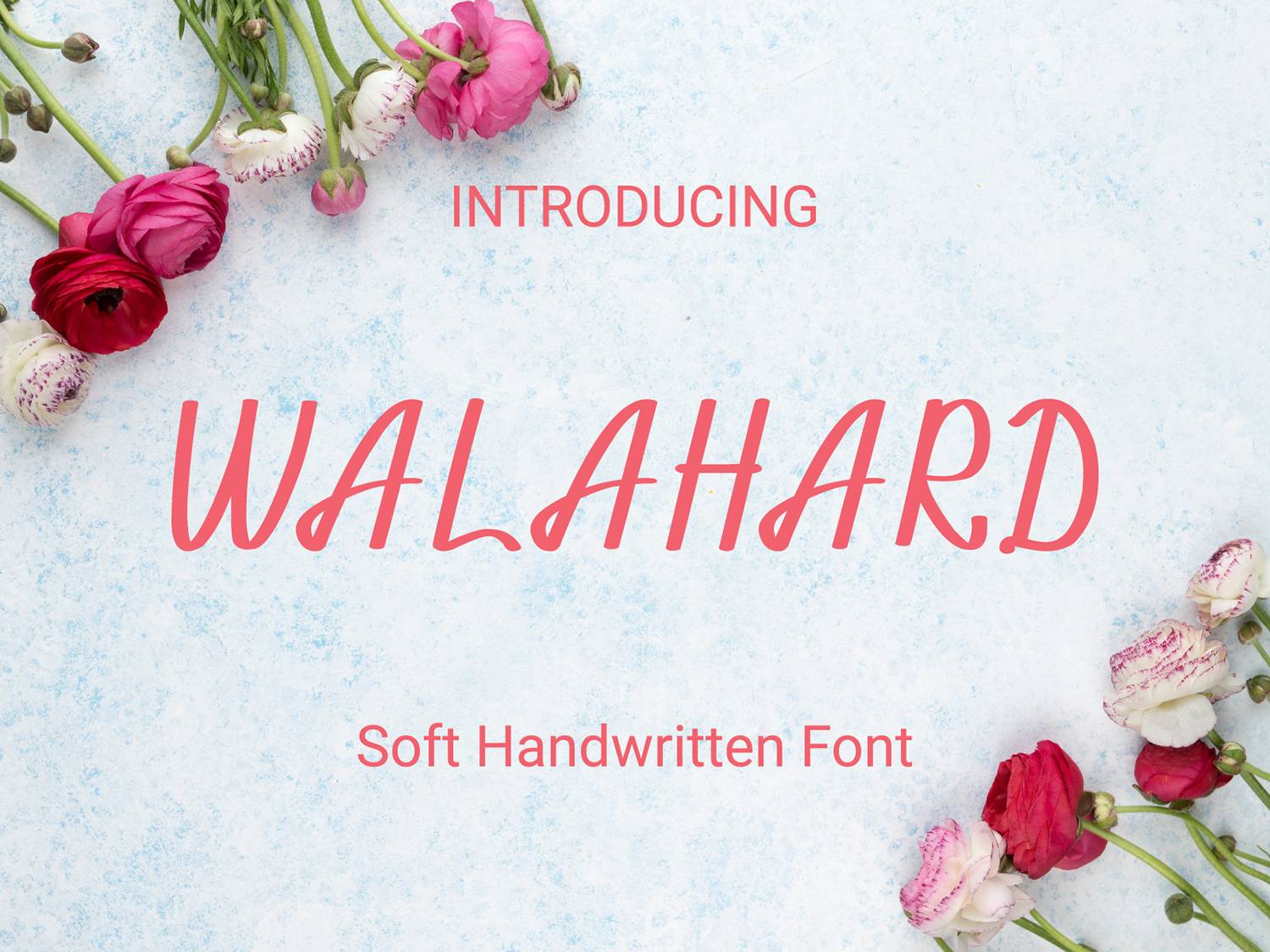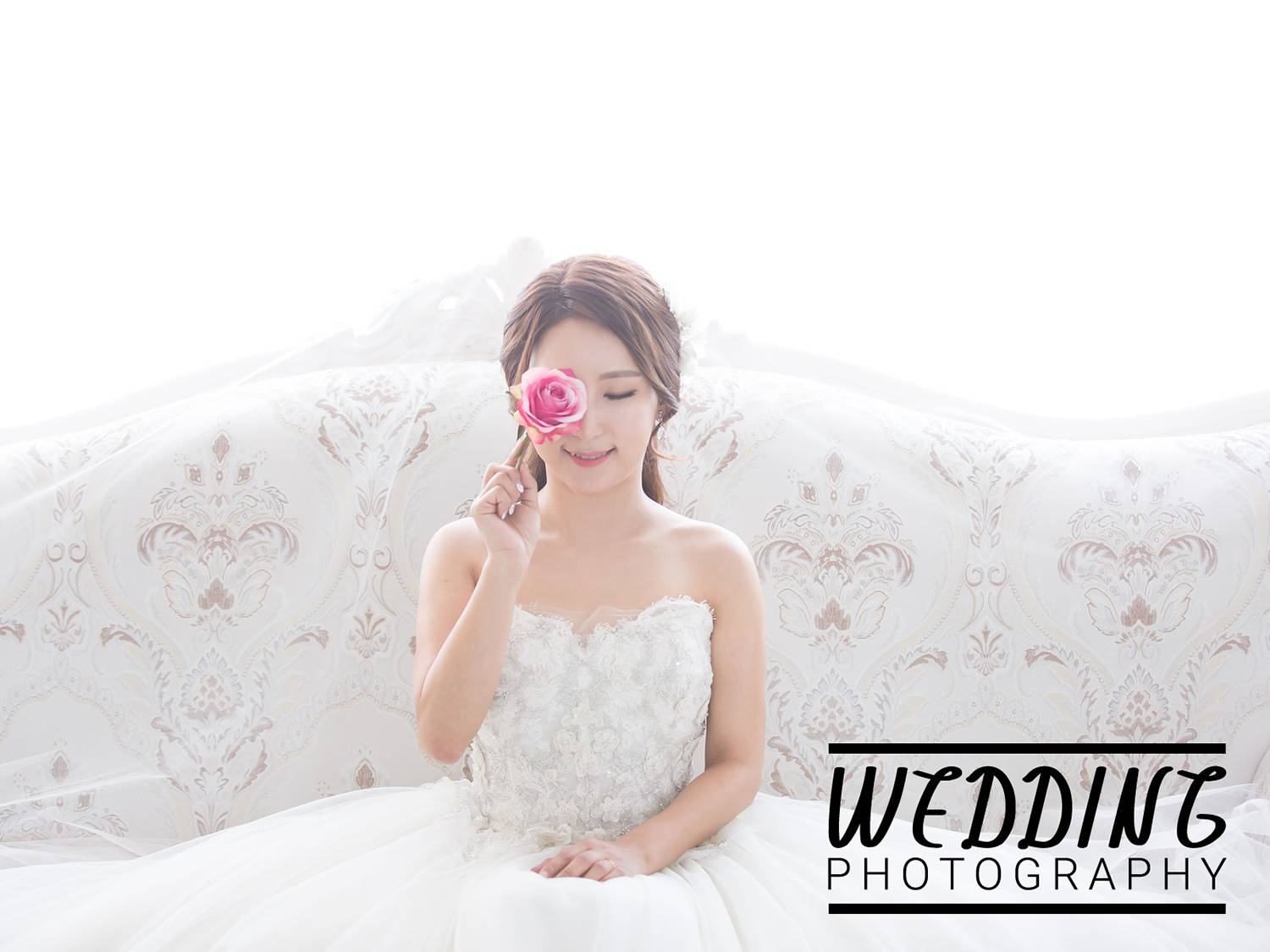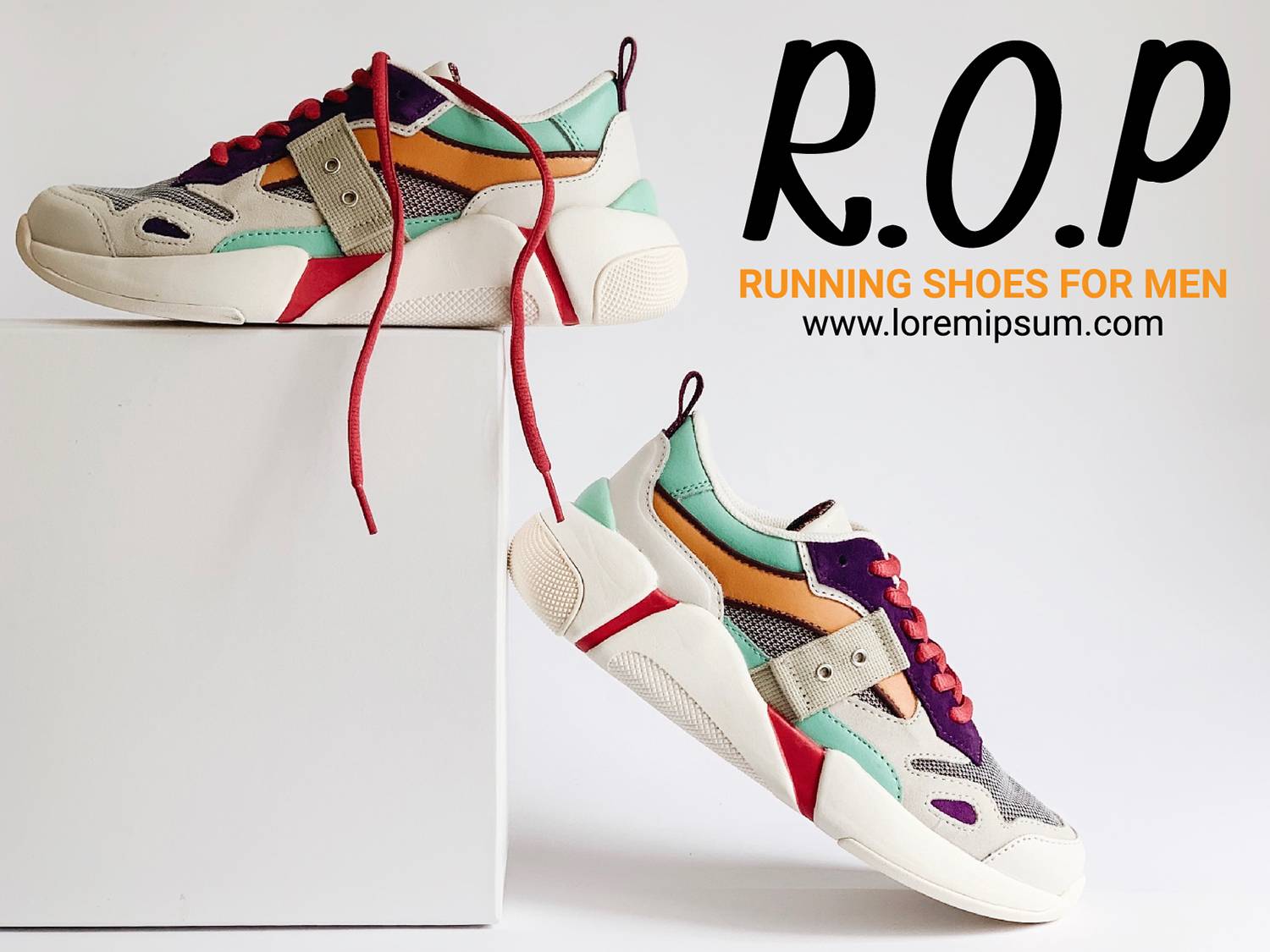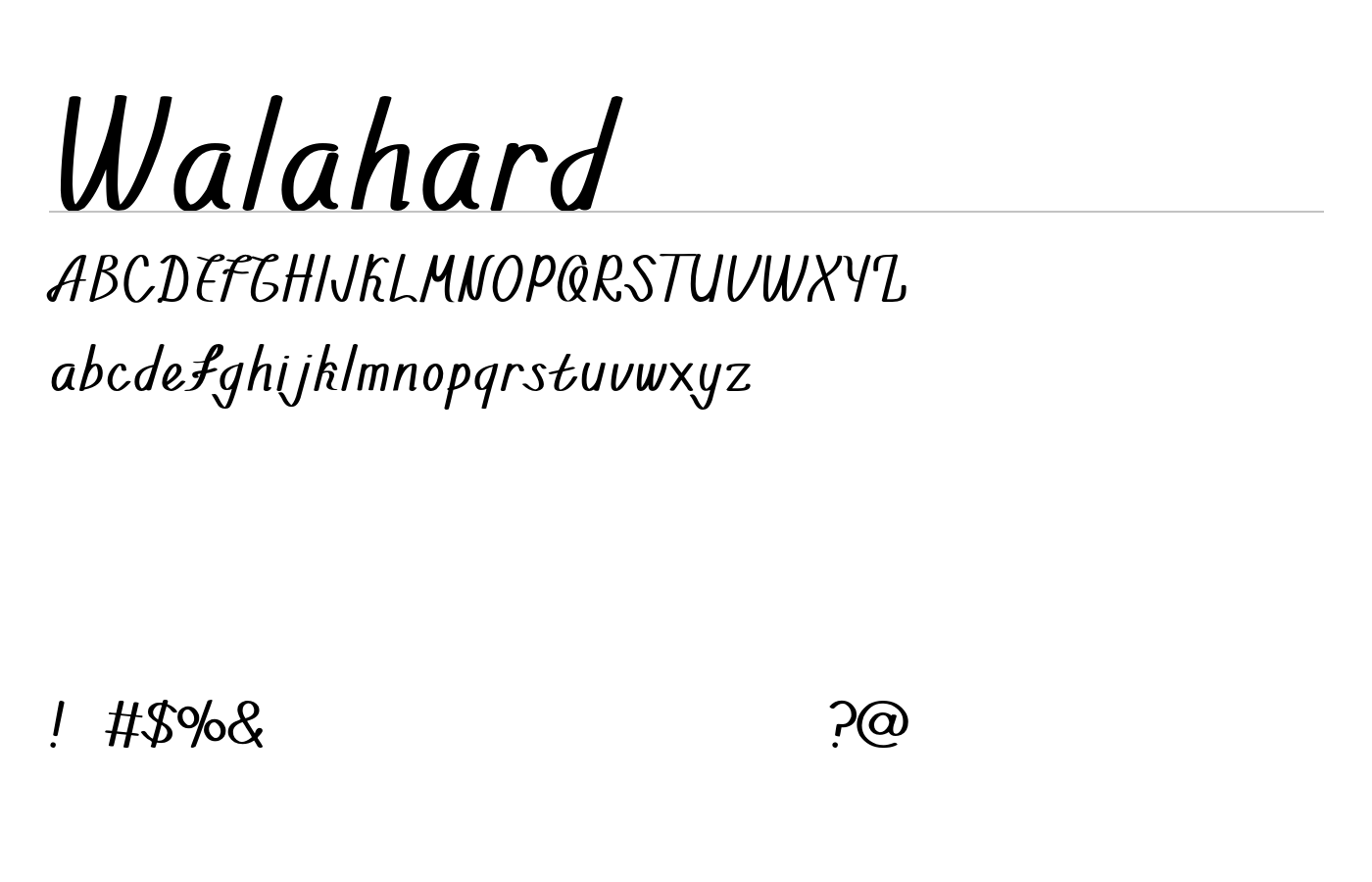
Walahard is a stylish script font with a smooth, flowing character that combines elegance and readability. It features moderate contrast in stroke weight, slender letterforms, and a casual yet refined feel, making it perfect for invitations, branding, and creative projects that seek a touch of personality and charm. Its unique letter shapes bring a lively and approachable vibe, ideal for designs needing a handwritten but polished look.
Walahard Font
About Walahard Font